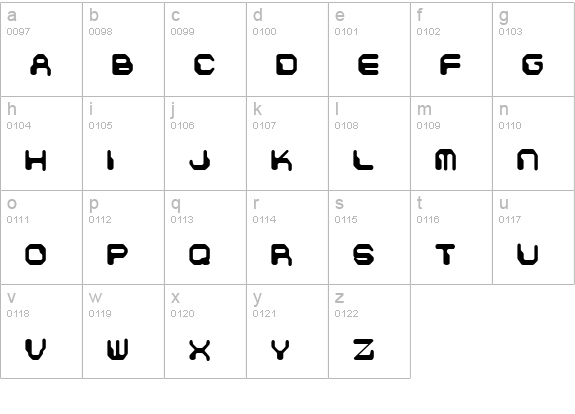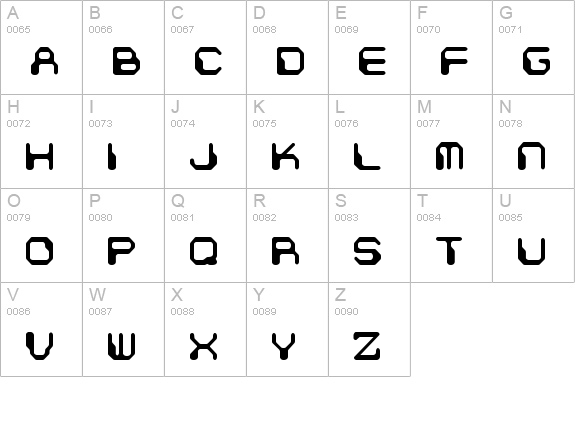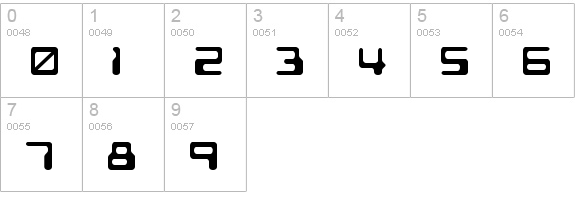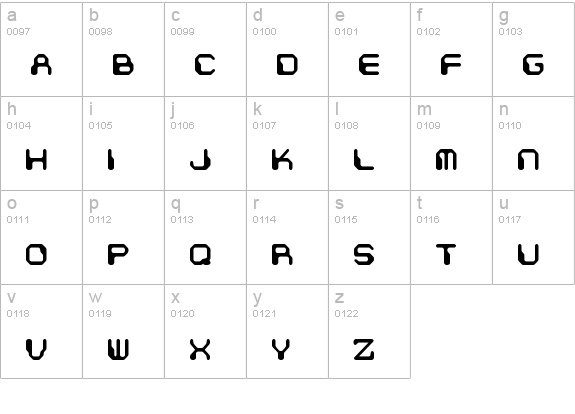
Chintzy CPU BRK Font Details
Chintzy CPU BRK is a quirky and playful font that exudes a retro charm. This display typeface features uneven strokes and distorted letterforms, giving it a unique and artsy look. Perfect for adding a touch of whimsy to your designs, Chintzy CPU BRK is ideal for headlines, posters, and branding projects. What makes Chintzy CPU BRK even more appealing is that it is available for free download at FontsMarket.com. Whether you're a designer looking to experiment with a fun and unconventional font or just a creative individual in search of a standout typeface, Chintzy CPU BRK is the perfect choice. Download it today and let your creativity run wild with this free and eye-catching font!